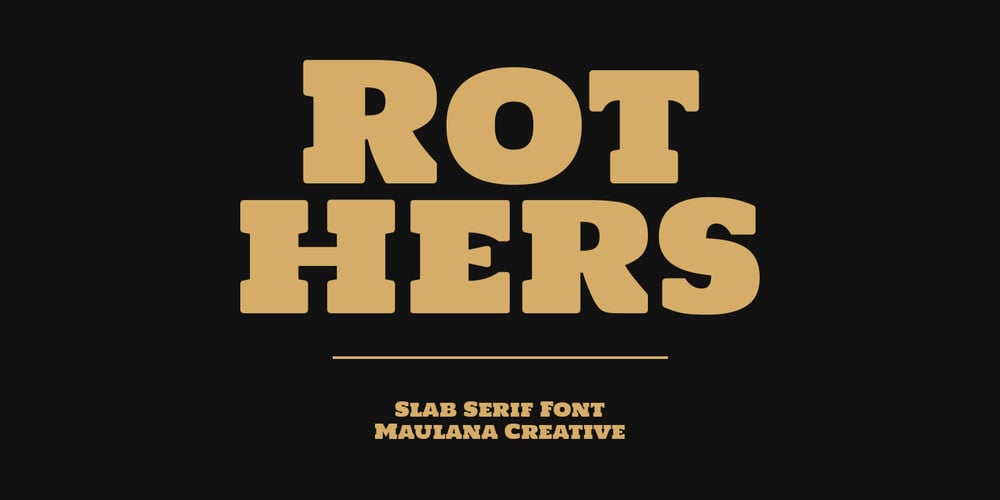
MC Rothers Font Family was designed by Gilang Maulana and published by Maulana Creative. MC Rothers contains 1 styles and family package options. Rothers is a slab serif display font. Bold stroke, fun character with a bit of ligatures and alternates. To give you an extra creative work. Rothers font support multilingual more than 100+ language. This font is good for logo design, Social media, Movie Titles, Books Titles, a short text even a long text letter and good for your secondary text font with script or serif. Make a stunning work with Rothers font. Cheers, Maulana Creative